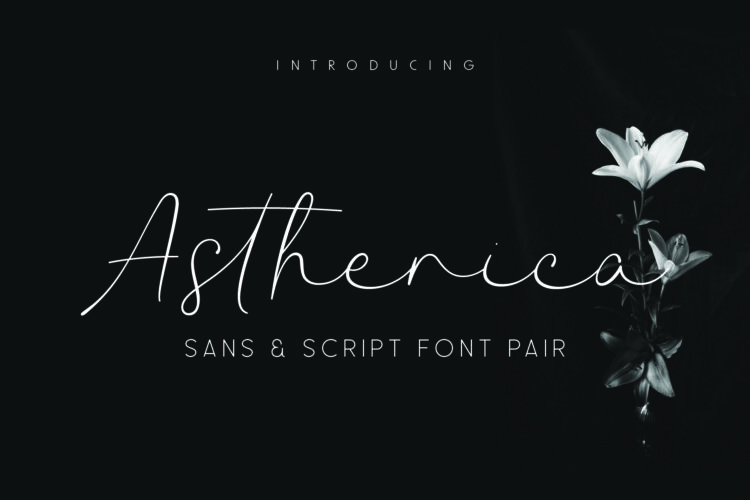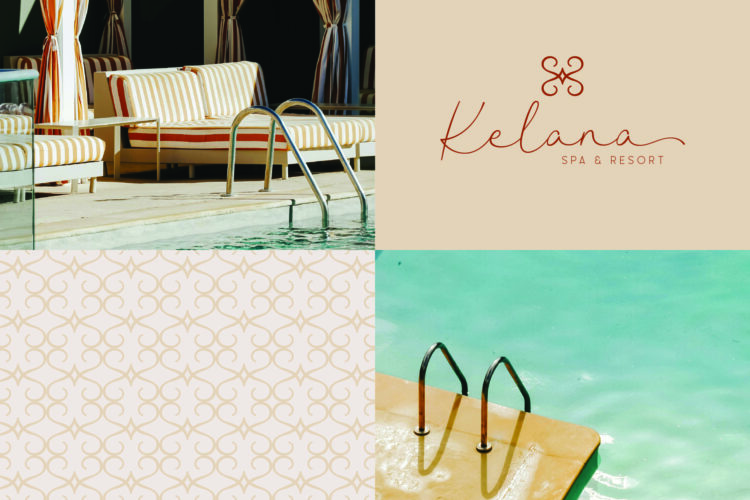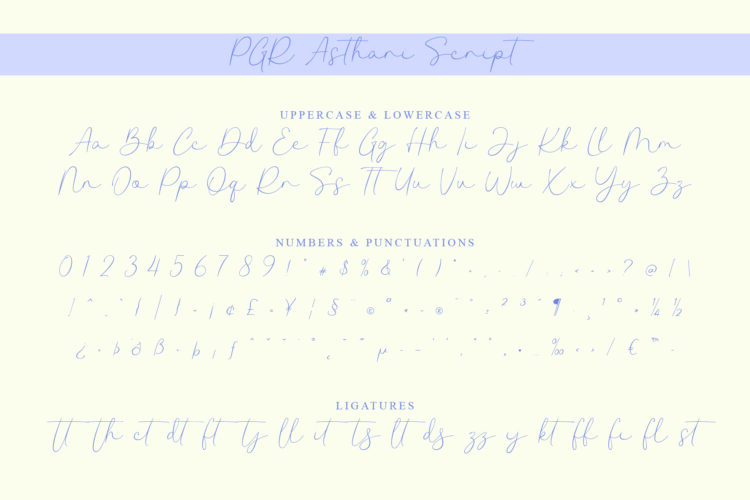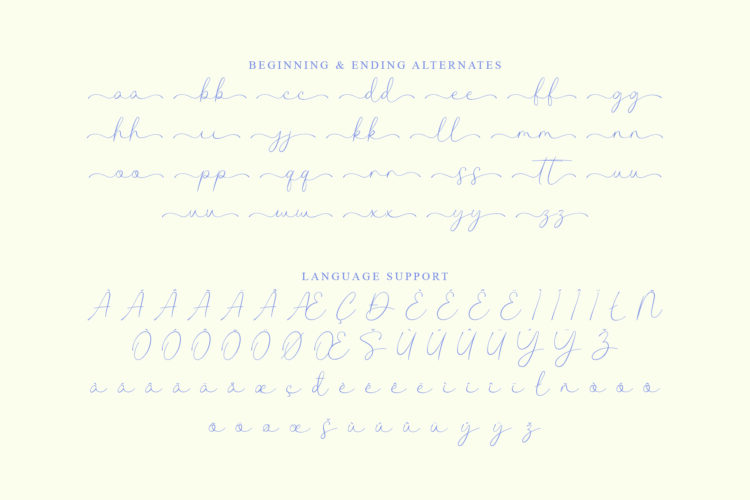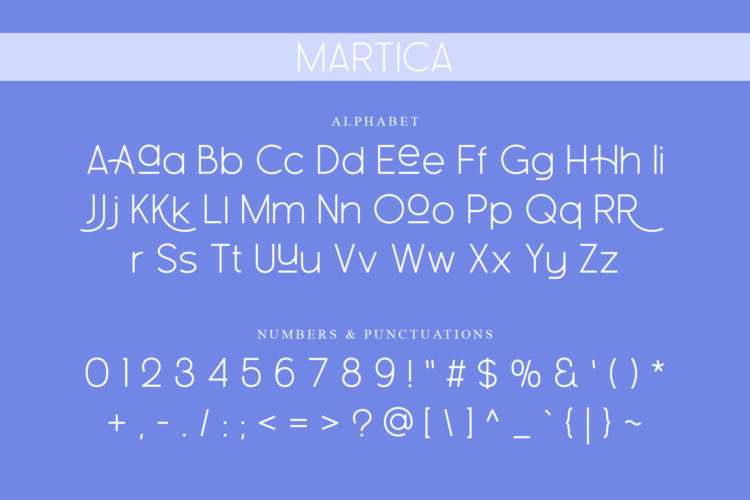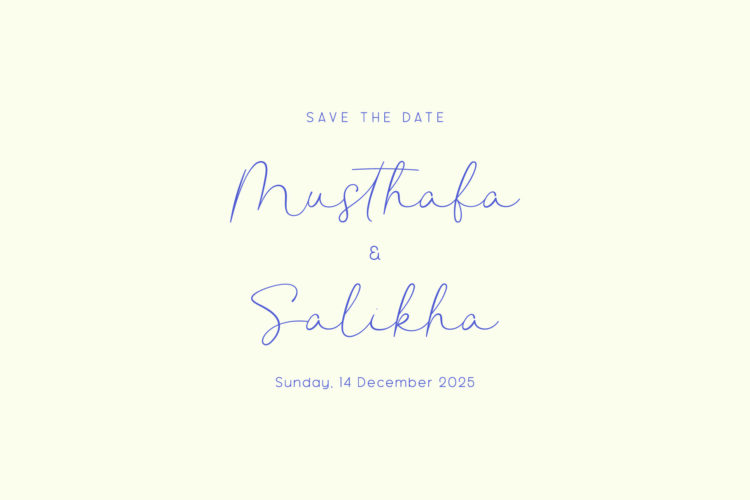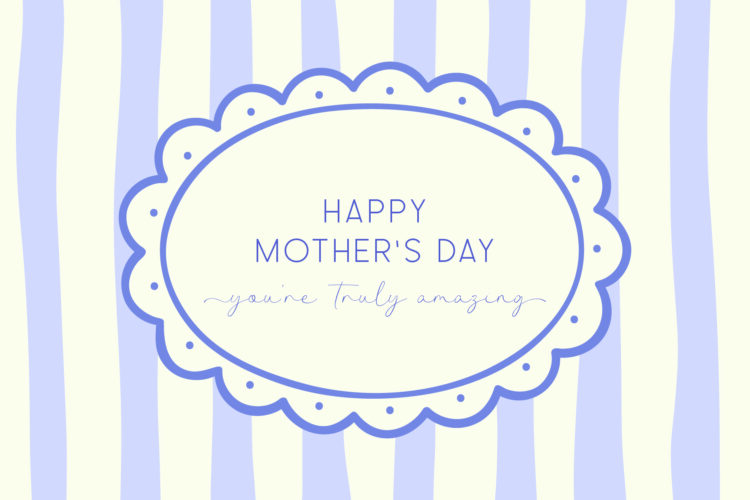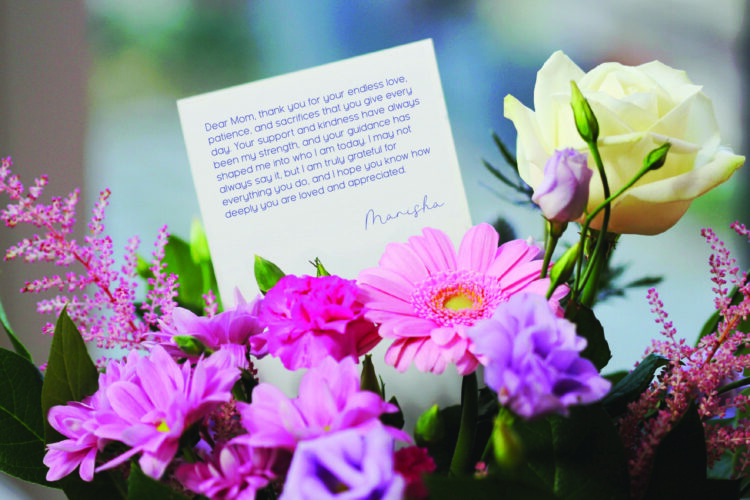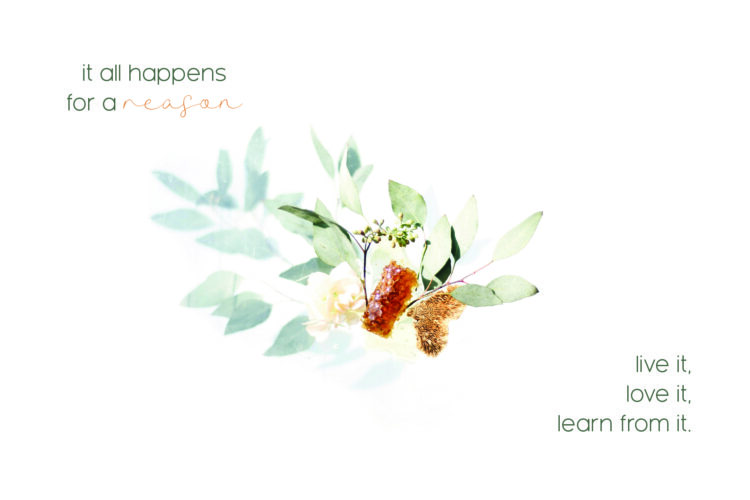
Martica
PGR Astheria Script
Astherica is a playful and charming font pair. It mixes a thin, elegant sans serif with a flowing script. This combination adds both modern style and a fun, whimsical touch.
Martica, the sans serif font, is thin, feminine, and elegant. It has a full alphabet, numbers, and basic symbols. Martica works well for clean headlines, modern branding, editorials, and any project that needs a simple yet sophisticated look.
PGR Astheria Script, the script font, is flowing and elegant. It includes a full alphabet, numbers, symbols, ligatures, and alternate lowercase letters for stylish beginnings and endings. It also has language support. This font adds a soft, personal touch. Use it for logos, signatures, wedding invites, packaging, and playful or feminine branding.
Astherica | Font Pair